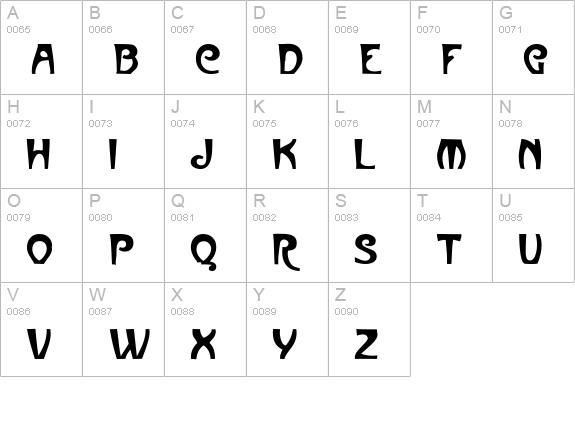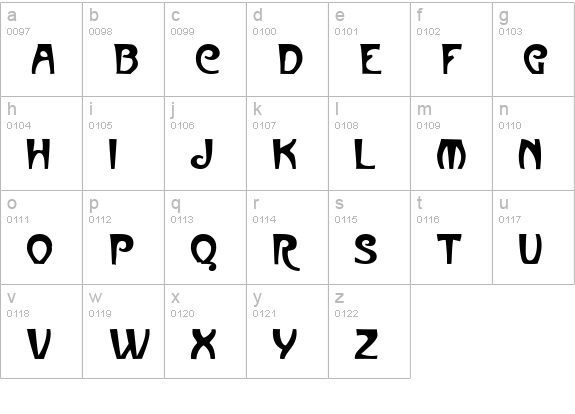
MullinsCaps Font Details
Introducing MullinsCaps font - a stunning display typeface that exudes elegance and sophistication. With its bold and intricate letterforms, MullinsCaps is perfect for adding a touch of luxury to your designs. The font features unique uppercase characters that are sure to make a statement and leave a lasting impression. What's even better is that MullinsCaps is available for free download at FontsMarket.com, making it easily accessible for designers and creatives looking to elevate their projects. Whether you're working on branding, invitations, posters, or any other creative endeavor, MullinsCaps is a versatile font that will help you stand out from the crowd. Don't miss out on the opportunity to enhance your designs with the timeless beauty of MullinsCaps font. Download it for free today and let your creativity shine!